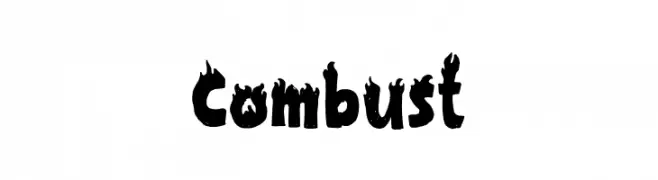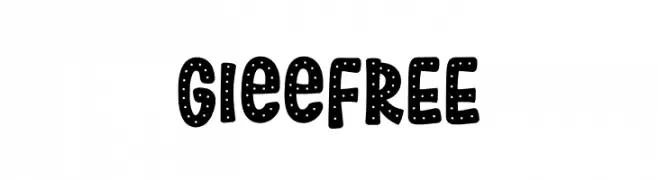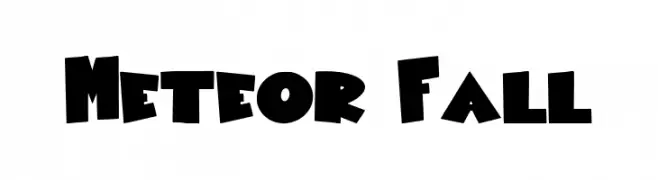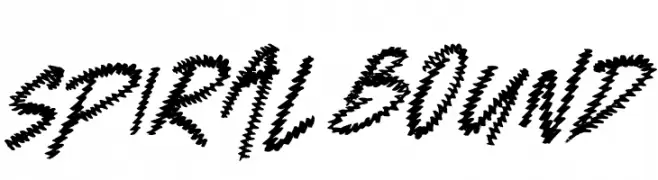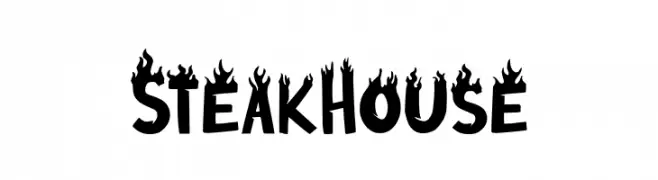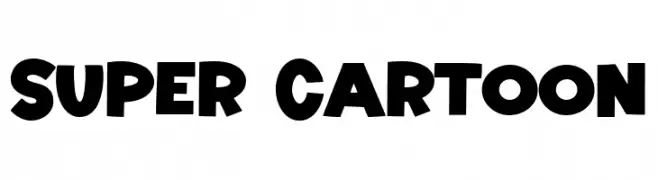
A bold, playful font with chunky, dynamic letters.
A playful, polka-dotted decorative font with bold, rounded characters.
A bold, high-contrast collection of comic-style symbols for dynamic visual storytelling.
A playful decorative font featuring stars and rainbows, perfect for whimsical designs.
A bold, jagged, and energetic font with a modern handwritten style.
A bold, playful font with cartoonish, exaggerated strokes.
A playful, bold, and bubbly font with a whimsical style.
A bold, fiery font with jagged, flame-like edges for dramatic impact.
A bold, flame-themed font with thick strokes and dynamic energy.
A bold, flame-inspired font with a dynamic and energetic style.